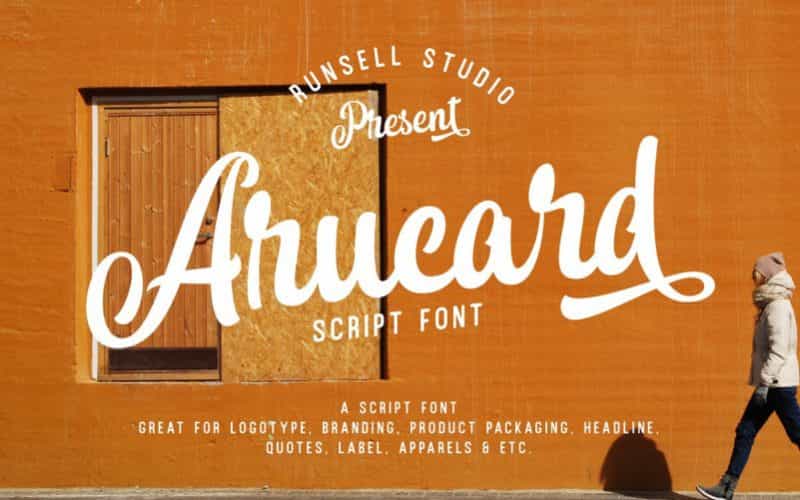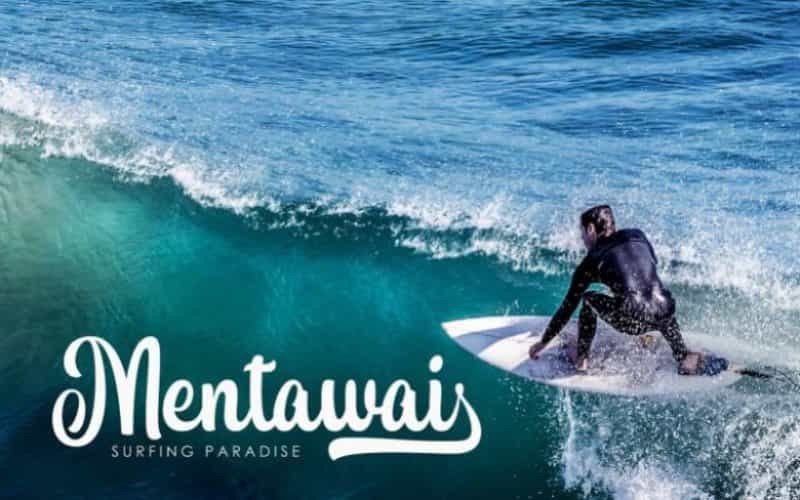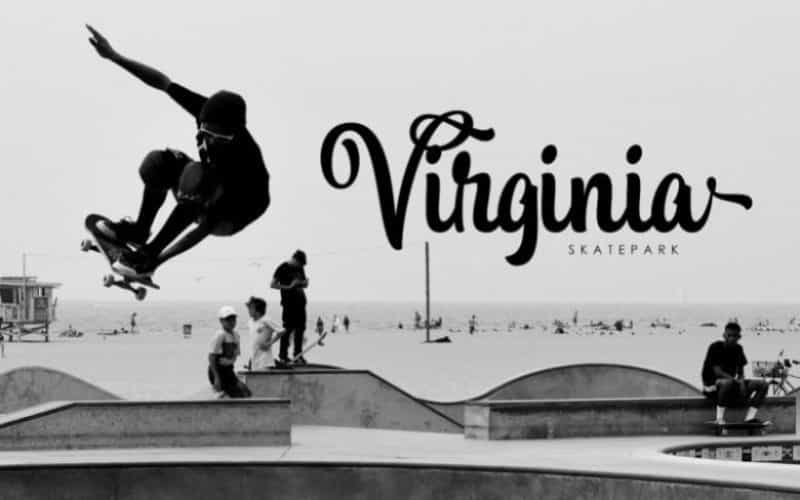
Introducing Arucard! The style is kept more traditional to the nature of script fonts, though the letters don’t look too common. Arucard is specially suitable for branding project, logotype, label, product packing, headline, letterhead, typography, clothes, or just for stylish text on any background image.